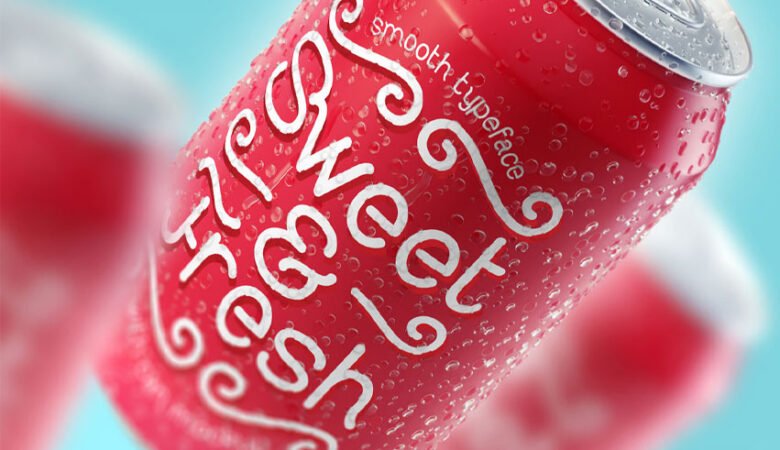
Sweet Partner Font
Sweet Partner Font is a cool and lovely duo font (sans serif and script). Incredibly versatile, this font fits a wide pool of designs, elevating them to the highest levels.
Add this font to your favorite creative ideas and notice how it makes them come alive!